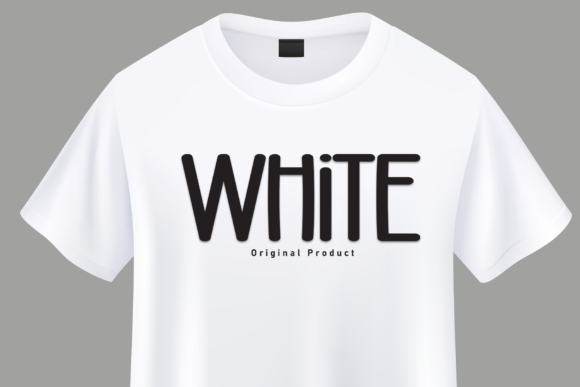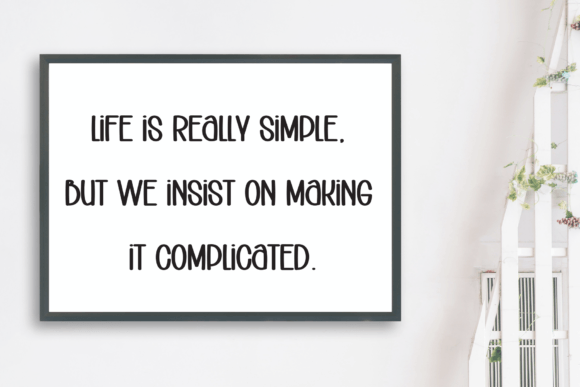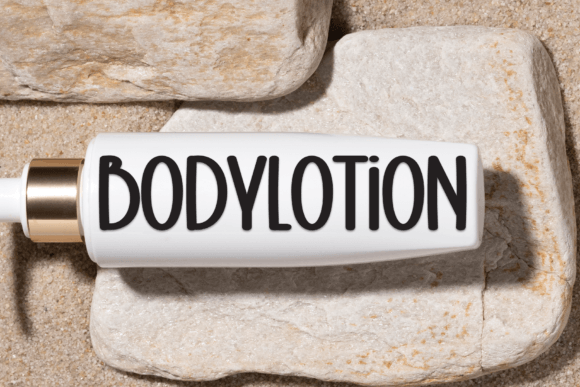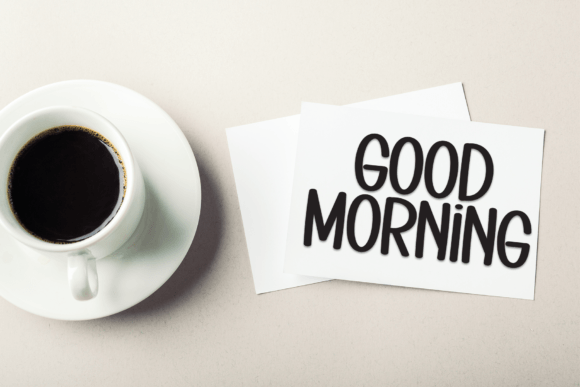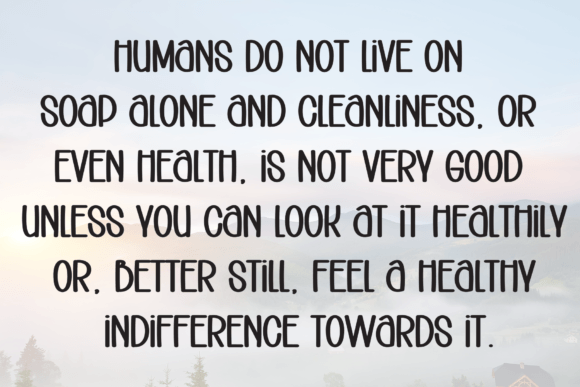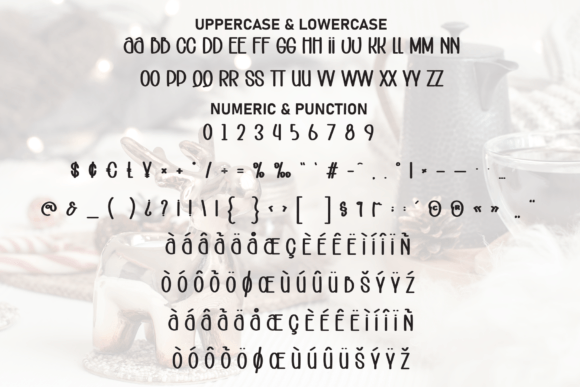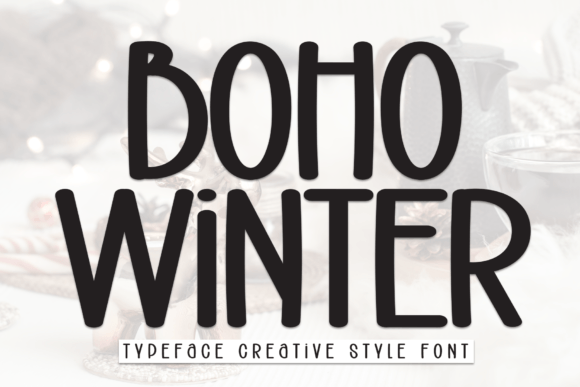
Introducing Boho Winter Font: The Perfect Addition to Your Design Collection
Are you on the hunt for a font that exudes warmth, charm, and playfulness? Look no further than Boho Winter Font, a hand-drawn display font that is sure to capture the hearts of designers and crafters alike. With its engaging and jovial characteristics, this font is the perfect choice for crafting wedding invites, cards, and other design projects that require a touch of whimsy and delight.
The Characteristics of Boho Winter Font
Boho Winter Font is a one-of-a-kind, hand-drawn display font that boasts a unique and charming personality. Its engaging and jovial characteristics make it perfect for designs that require a playful and lighthearted touch. The font features:
- Hand-drawn design with a personal touch
- Warm and inviting feel
- Perfect for wedding invites, cards, and other design projects
- Delightful and playful aesthetic
- Whimsical and charming characteristics
Why Choose Boho Winter Font?
So, why should you choose Boho Winter Font for your design projects? Here are just a few reasons:
- Uniqueness: Boho Winter Font is a one-of-a-kind font that will set your designs apart from the rest.
- Versatility: This font can be used for a variety of design projects, from wedding invites and cards to posters and social media graphics.
- Customization: The font can be easily customized to fit your design needs, allowing you to add your own personal touch.
Perfect for Wedding Invites and Cards
Boho Winter Font is the perfect choice for wedding invites and cards. Its delightful and playful aesthetic adds a touch of whimsy and charm to any design, making it perfect for:
- Wedding invitations
- Save-the-date cards
- Thank-you cards
- Anniversary cards
Tips for Using Boho Winter Font
Here are a few tips for using Boho Winter Font in your design projects:
- Pair with other fonts: Boho Winter Font pairs perfectly with other fonts, such as serif and sans-serif fonts.
- Experiment with colors: The font looks great in a variety of colors, from bold and bright to soft and pastel.
- Add graphics: Boho Winter Font looks great when paired with graphics, such as illustrations and watercolor designs.
In conclusion, Boho Winter Font is a charming and warm-hearted, hand-drawn display font that is perfect for designers and crafters looking to add a touch of whimsy and delight to their designs. With its engaging and jovial characteristics, this font is sure to capture the hearts of anyone who sees it. Whether you’re designing wedding invites, cards, or other projects, Boho Winter Font is the perfect choice.